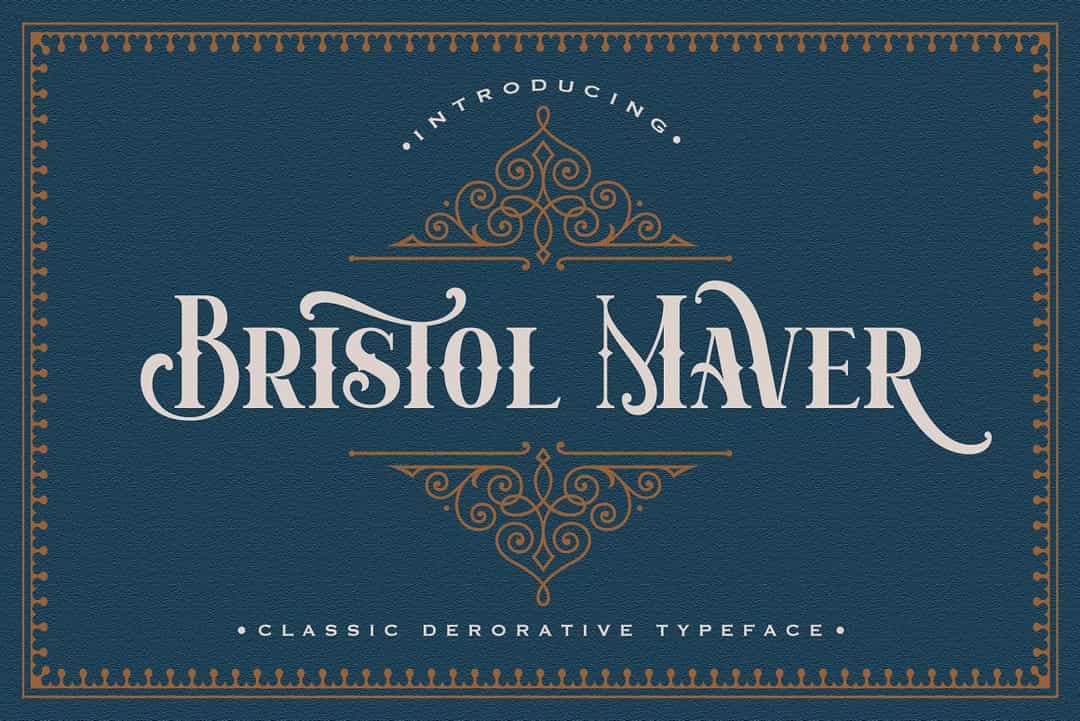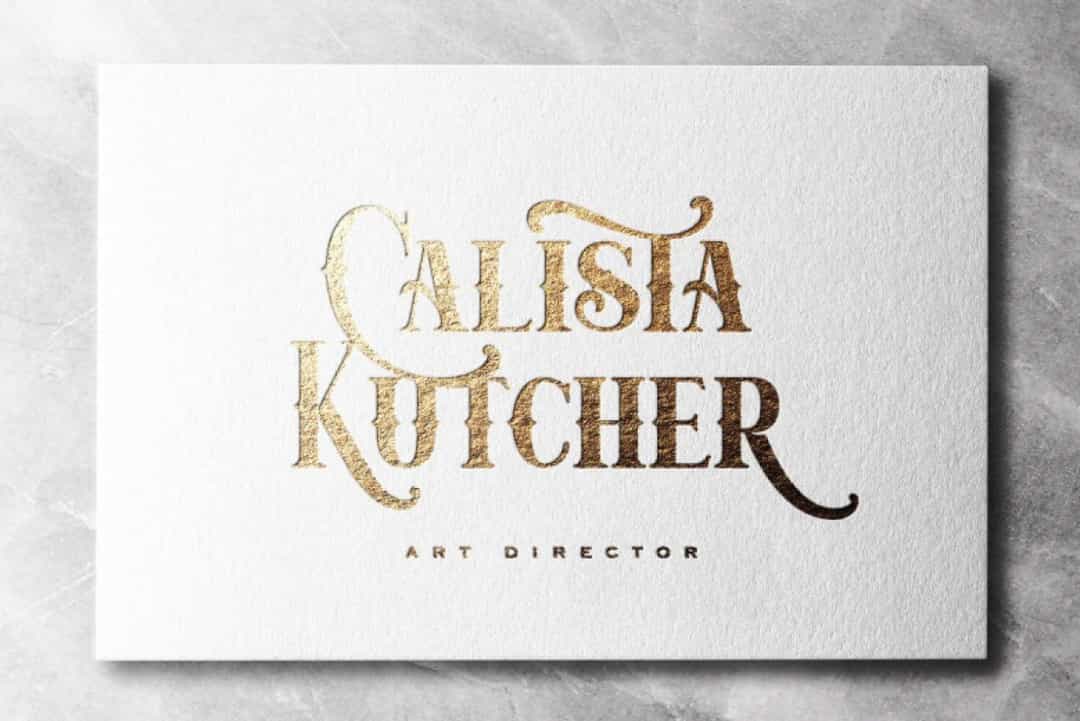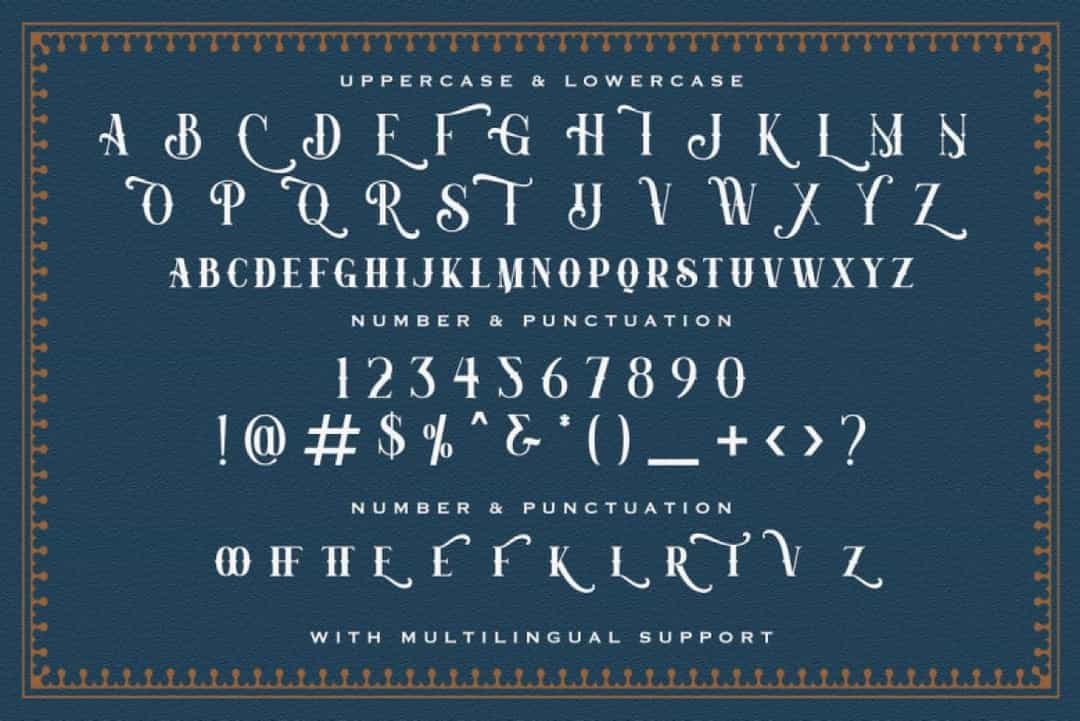
Bristol Maver Font
Bristol Maver is an elegant typeface with letterpress design that has symbols and ornaments. Great for logo, badges, promotional T-shirt hangails and other similar uses, Sacred Bridge can also be located here.